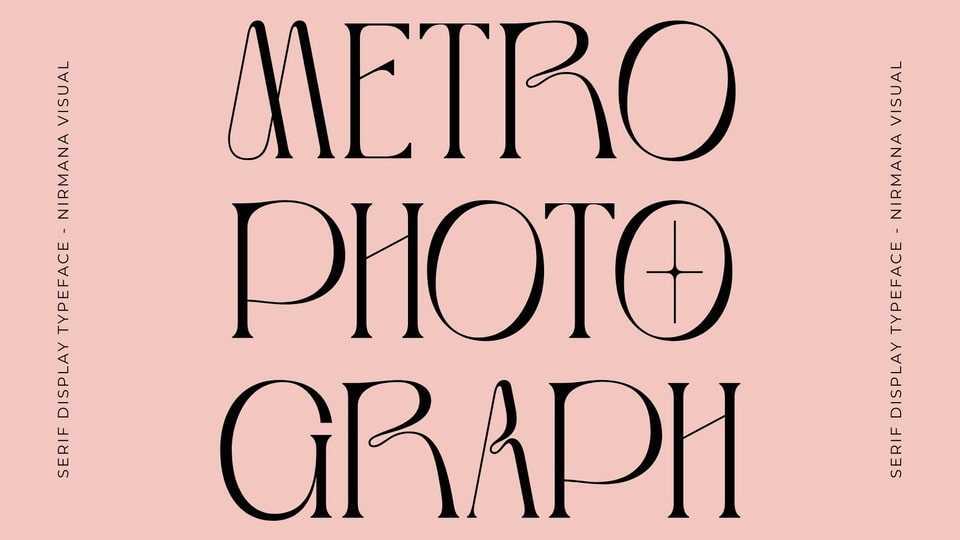
Download Metro Photograph font, a stylish and chic display typeface perfect for your favorite projects. Masterfully designed to become a true favorite, this font has the potential to bring each of your creative ideas to the highest level